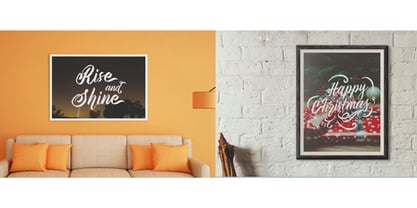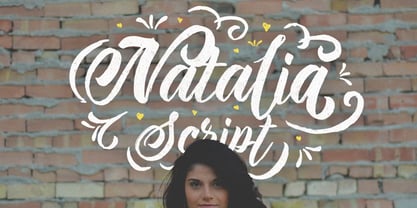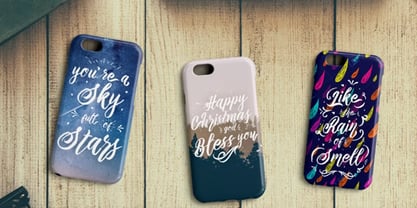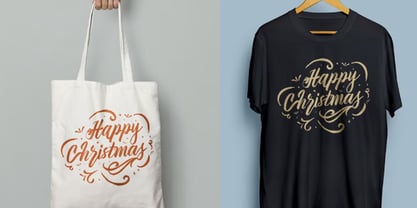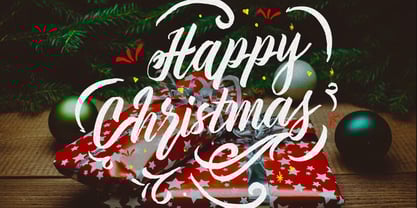
Natalia
by Maghrib Type
The Natalia Font Family was designed by Rizky Setyaludin and published by Maghrib Type. Natalia contains 1 styles. More about this family
Natalia Script is a hand-drawn script font that radiates warmth, femininity, and expressive charm. With its fluid brush strokes and naturally flowing letterforms, this font is perfect for design projects that seek a personal and artistic touch.
Each character is thoughtfully crafted with organic details and the natural rhythm of real handwriting. Accented with decorative swashes and charming flourishes, Natalia Script is ideal for branding, wedding invitations, inspirational quotes, product packaging, and social media designs.
This font offers a high level of versatility for designers looking to create soft, yet visually striking typography.
Add a personal and elegant touch to your next project with Natalia Script.